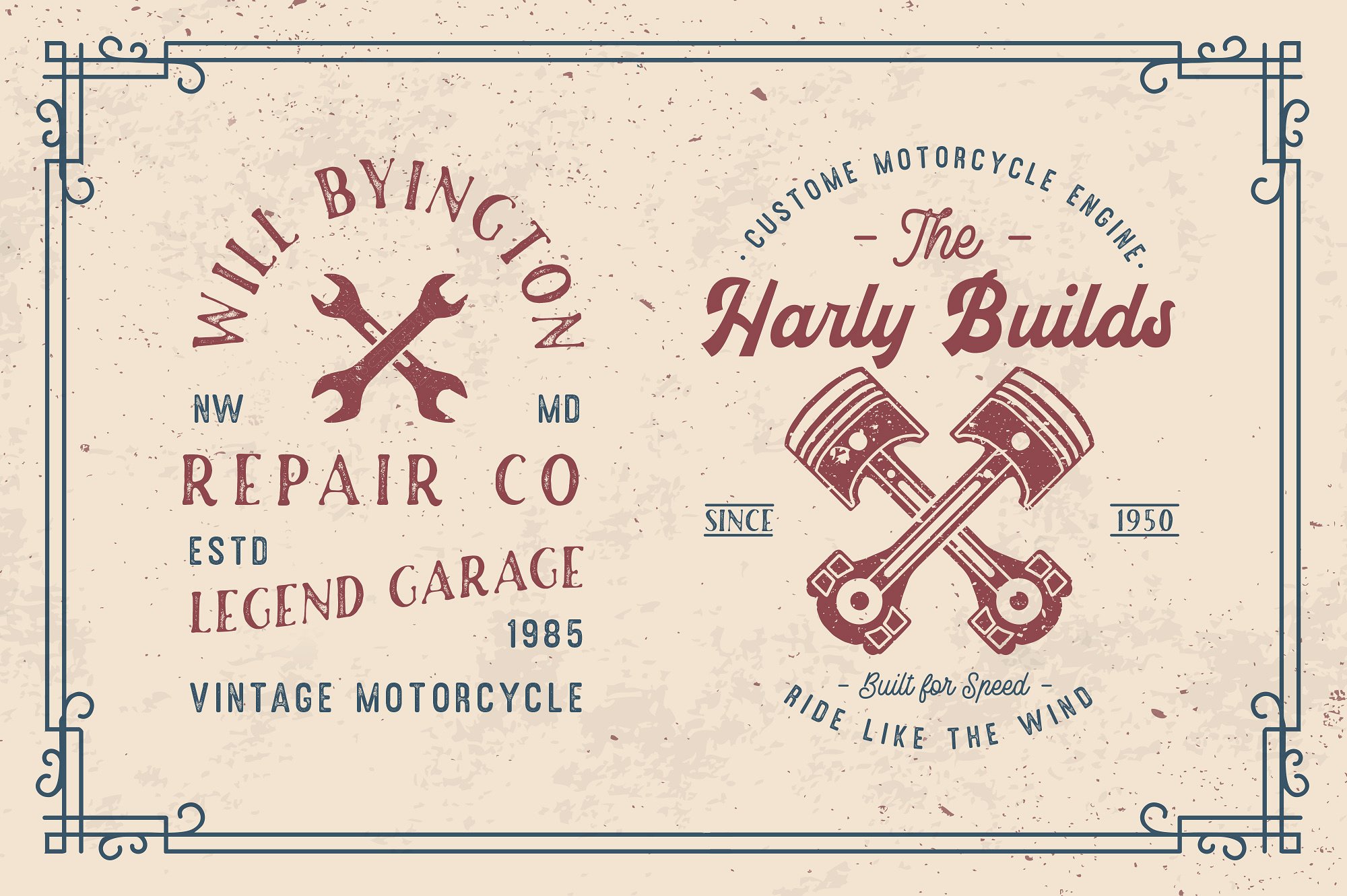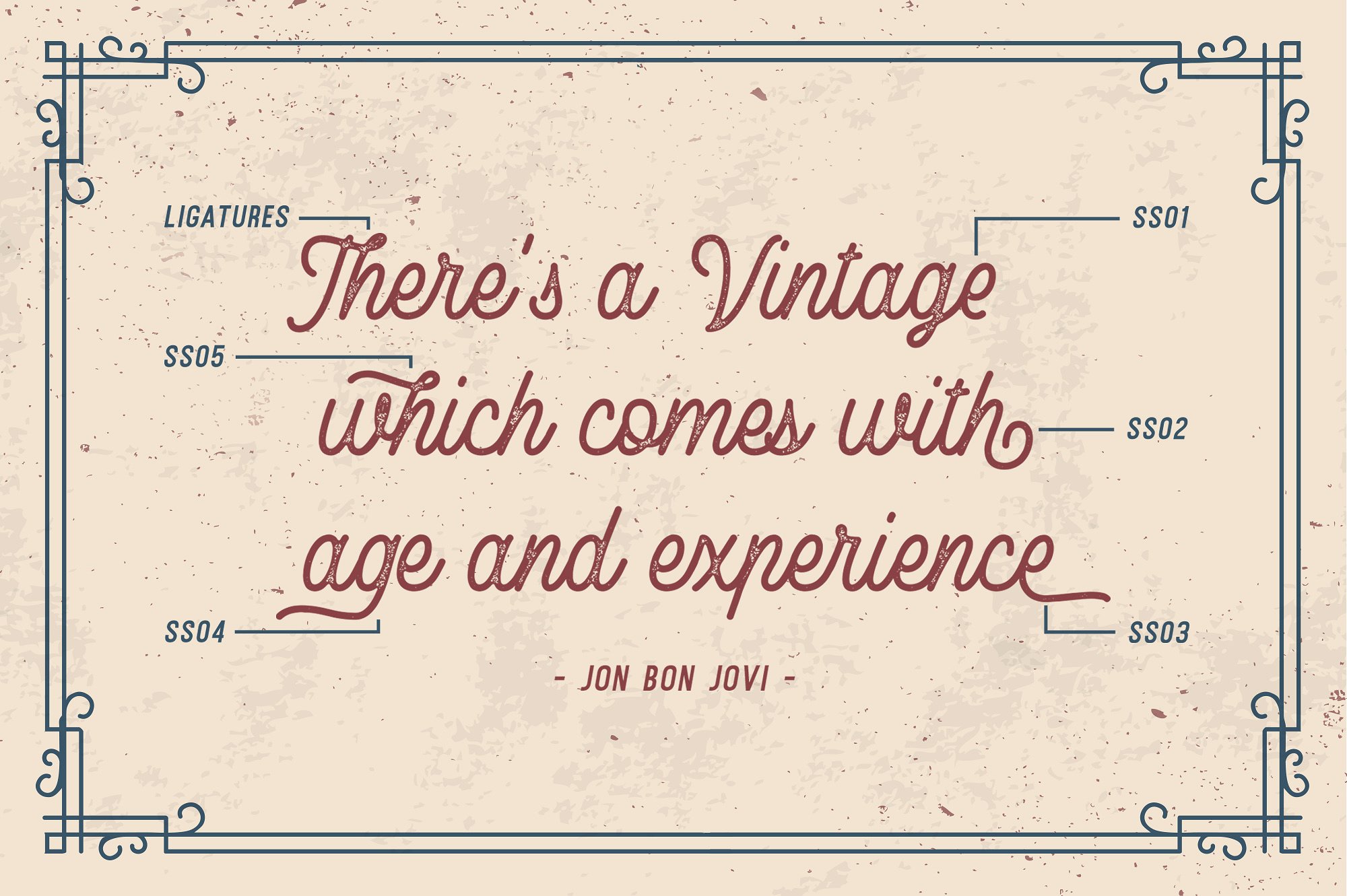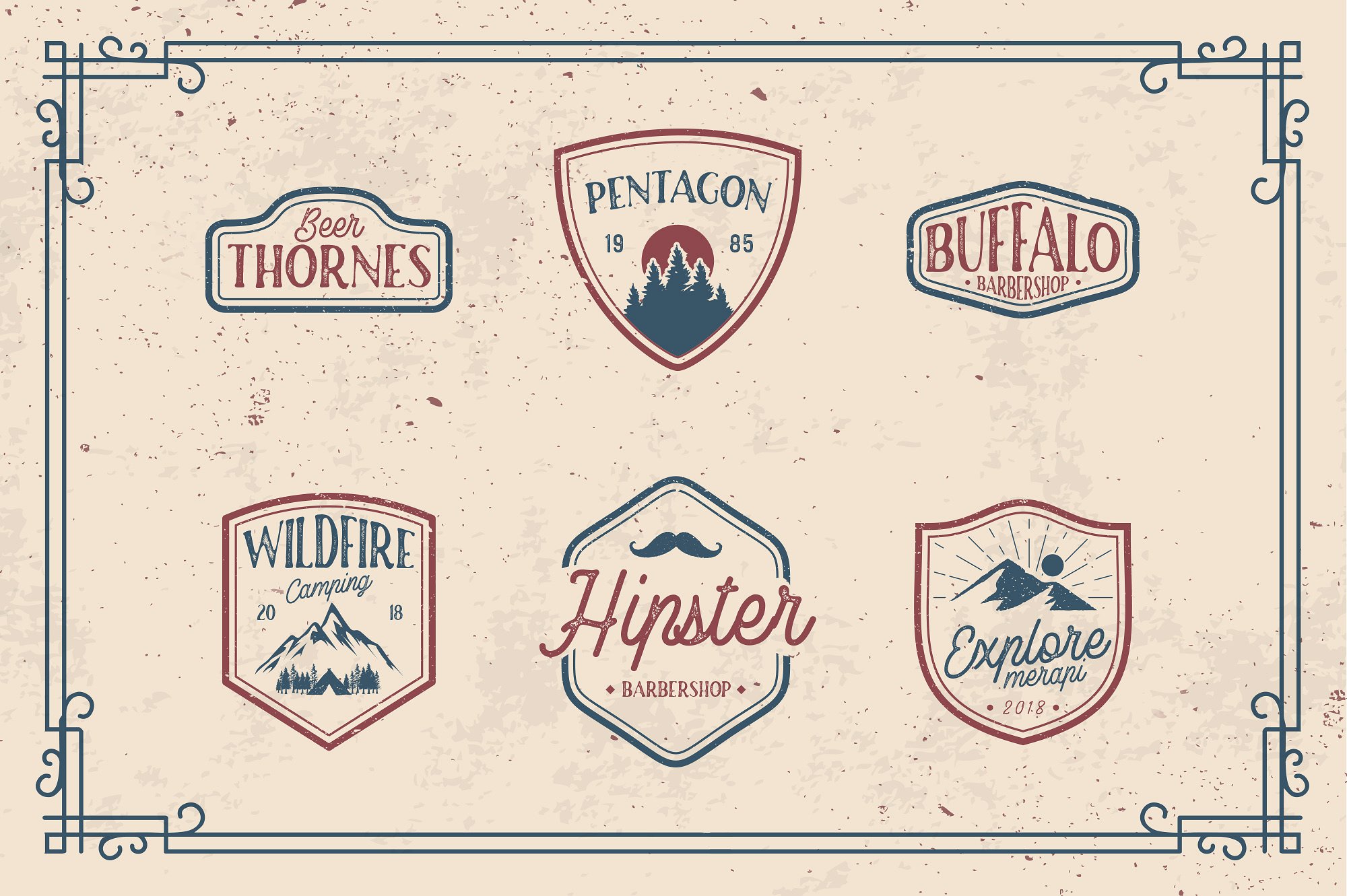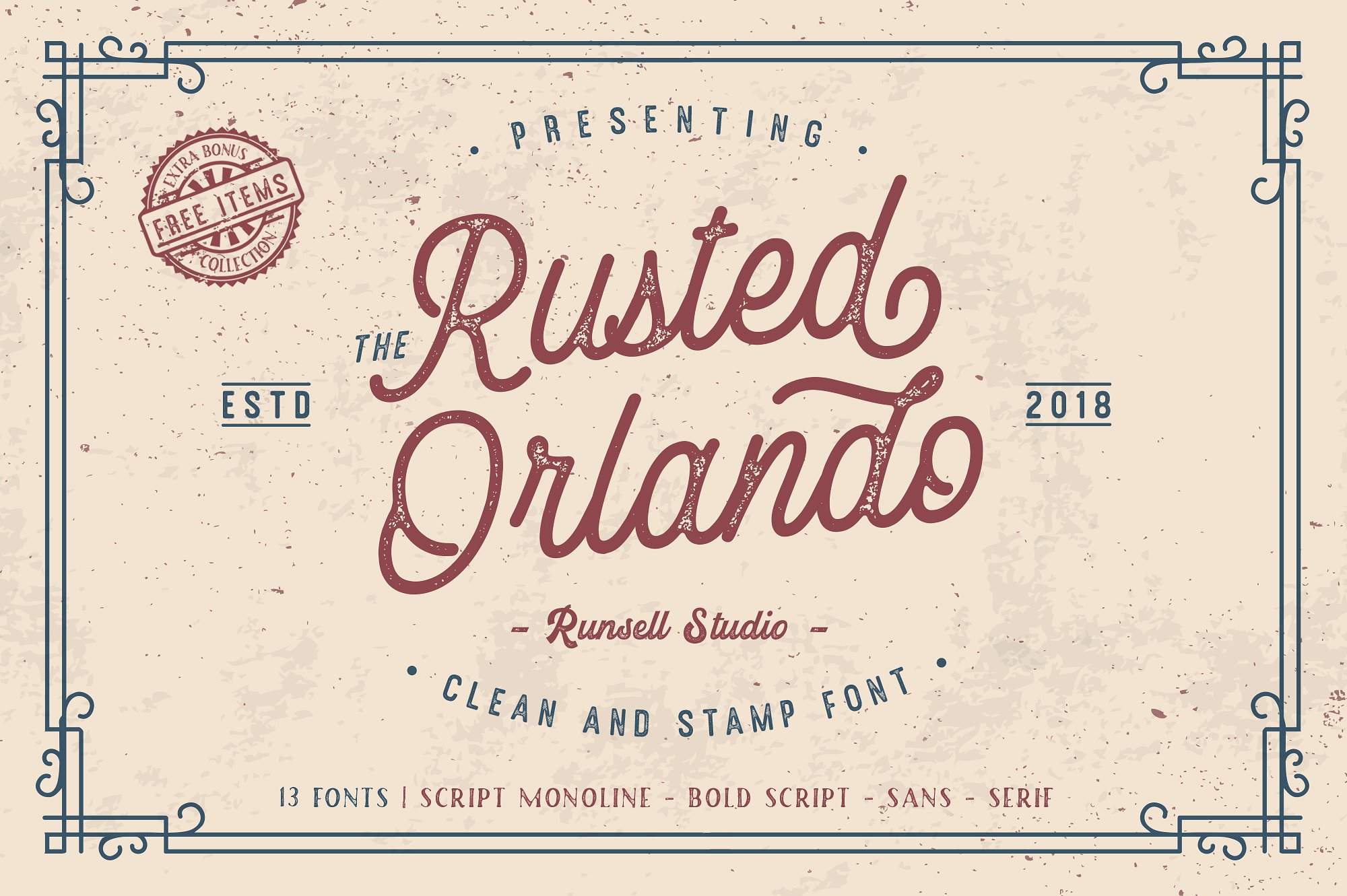
Rusted Orlando Font Family
Introducing Rusted Orlando. A family of fonts including: 13 fonts | script monoline – bold script – sans and serif font. This font is suitable for logos, branding, packaging, t-shirt design, and many other vintage design. This product has many additional bonuses to support design made like; illustrations (toolbox, barber, nature, animals, ride), frame ornaments, badges and logo templates.